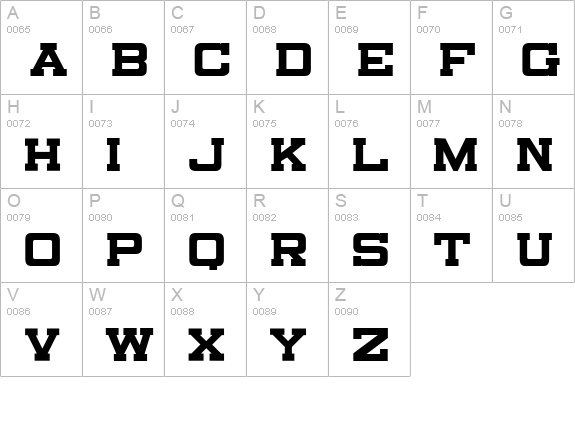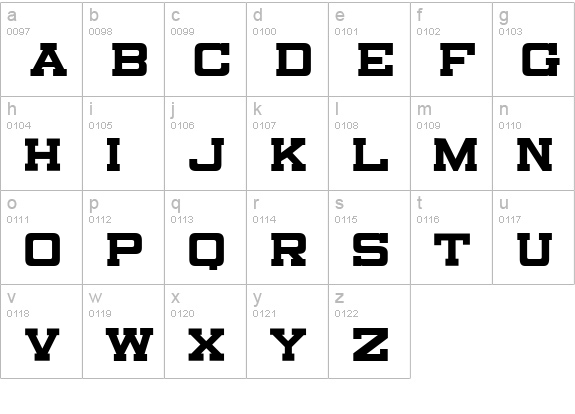
Canarsie Slab JL Font Details
Canarsie Slab JL font is a stunning display typeface that combines modern elegance with classic charm. With its clean lines, sharp angles, and distinctive slab serifs, this font exudes sophistication and style. Whether you're designing a logo, poster, or branding materials, Canarsie Slab JL font will make your text stand out and leave a lasting impression. The best part? Canarsie Slab JL font is completely free to download at FontsMarket.com. You can easily enhance your projects with this versatile and eye-catching typeface without having to worry about breaking the bank. Don't miss out on the opportunity to add Canarsie Slab JL font to your font collection today!